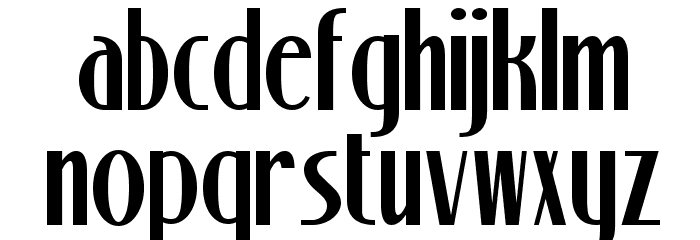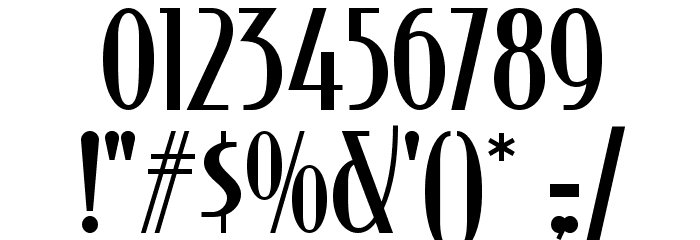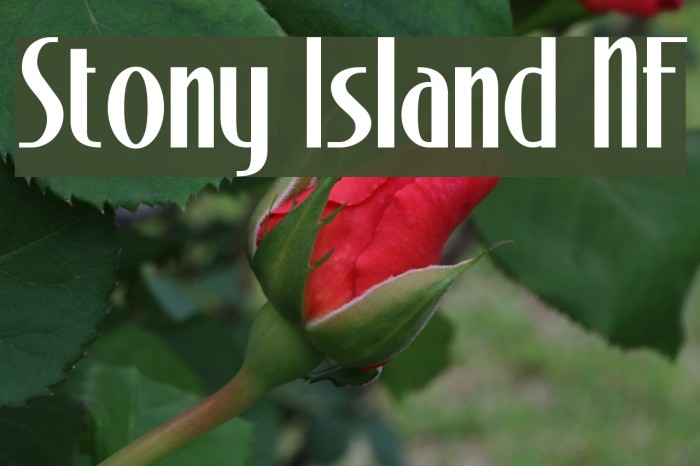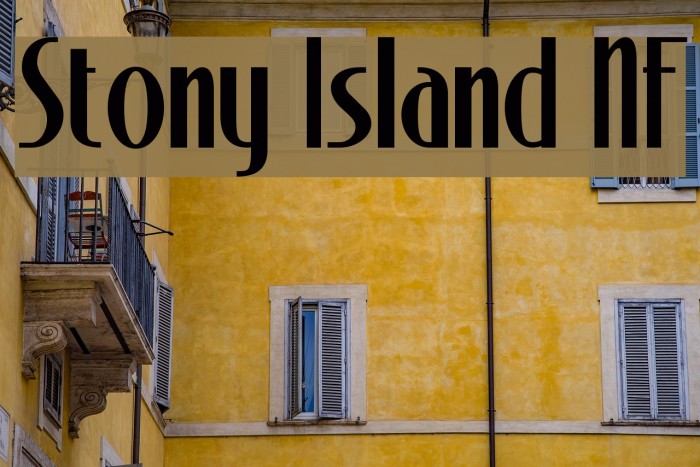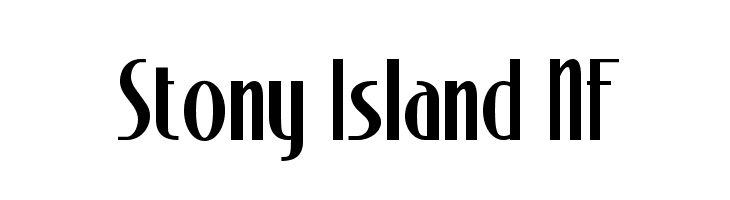
Stony Island NF Font
This font features a bold and dynamic design with tall, narrow characters that exude a sense of modern elegance. The uppercase letters are particularly striking, with a slight curvature that adds a touch of sophistication. The lowercase letters maintain a consistent style, complementing the uppercase with their elongated forms. Numbers are clear and distinct, ensuring readability. Special characters are creatively designed, fitting seamlessly with the overall aesthetic. The font's high contrast in stroke thickness enhances its visual impact, making it suitable for attention-grabbing headlines and titles.
A bold, modern font with tall, narrow characters and high contrast.
- Proposed Projects: Ideal for branding, advertising, posters, and editorial design where a modern and impactful look is desired.